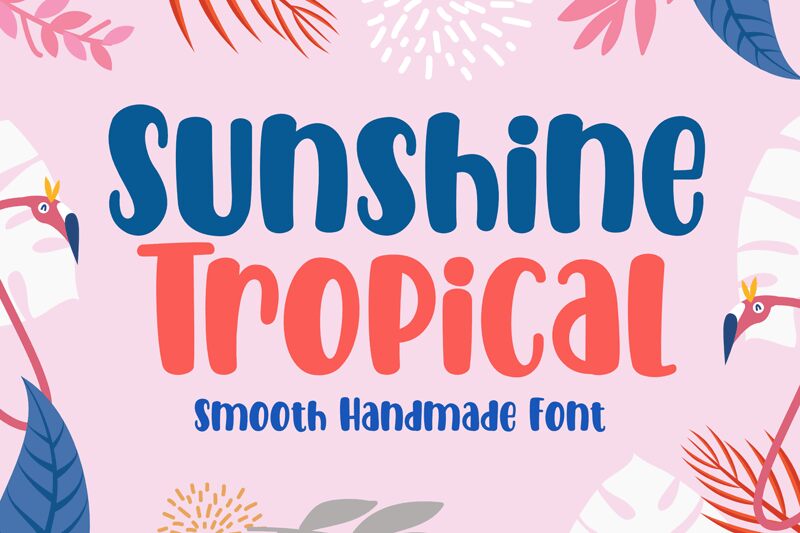
Sunshine Tropical font by Holydie Studio is a display font with cartoon style, bold write, and condensed structure. Fresh yet inviting, this playful retro-inspired free font brings warmth and the tropical vibe of summer with it in its way through your designs. It’s perfect for informal themes that favor cheerfulness or stylish simplicity.
Use Sunshine Tropical for logotypes, advertising posters, packaging labels, digital interfaces, app headings, magazine covers/titles, children/teen products/brands/titles/books illustrations or covers/book through document titles/captions/subtitles. Use in hospitality industry hardcopy or digital designs like menus/banners/pamphlets/etc or at resorts/cafe/restaurants/clubs anywhere along the tropical map!